Today we present you an interesting Arabic fonts collection. the problem is that there is not a particularly large variety of such fonts, but since what is created is particularly beautiful and designers do not want to stop, we will get even more fonts of this style later.
If you still didn’t find your favorite Arabic font, then don’t mind we will make a new additions to this list as well. These cool Arabic fonts is crafted by professional designers and has the best quality no matter it is free or premium font. You can use then in many different designs such as branding, posters, flyers, promotions, greeting cards, broshures and ets.
Blessed Eid Arabic Style Font
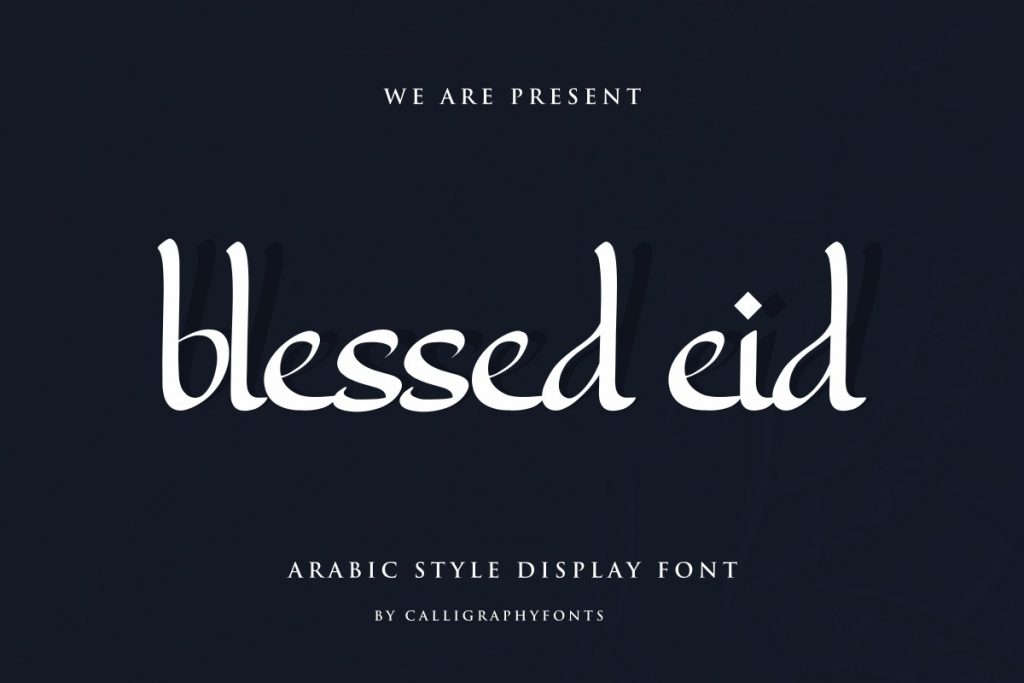
It is an Arabic style display calligraphy script font. Perfect for typographic projects such as greeting cards, invitations, flyers, posters, tittles, book covers and etc.
Araboto – Arabic Typeface
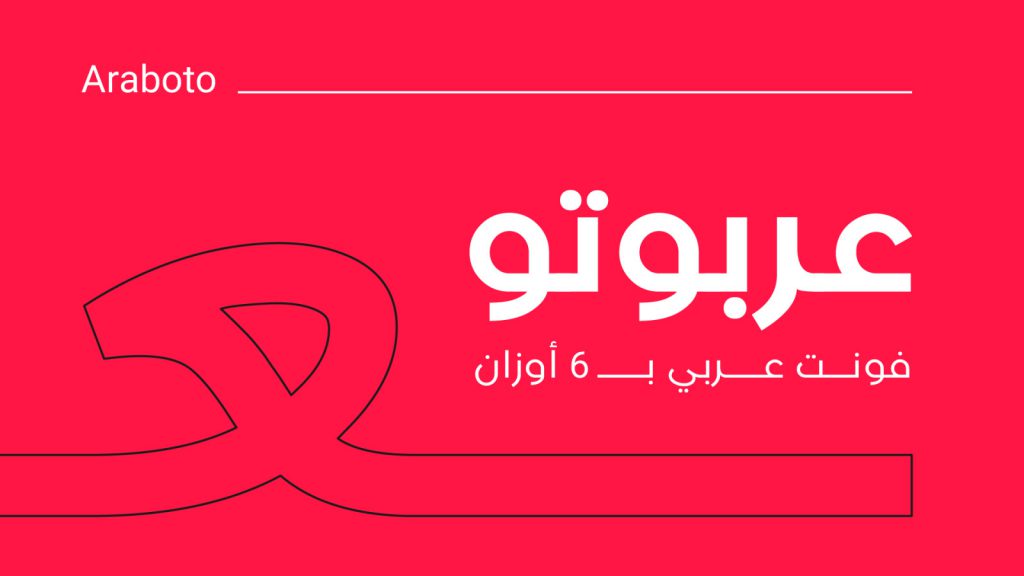
Araboto is a simple geometric Arabic typeface, with six weights. You can use it for a variety of uses from printings to web and mobile.
Saihat Arabic Typeface
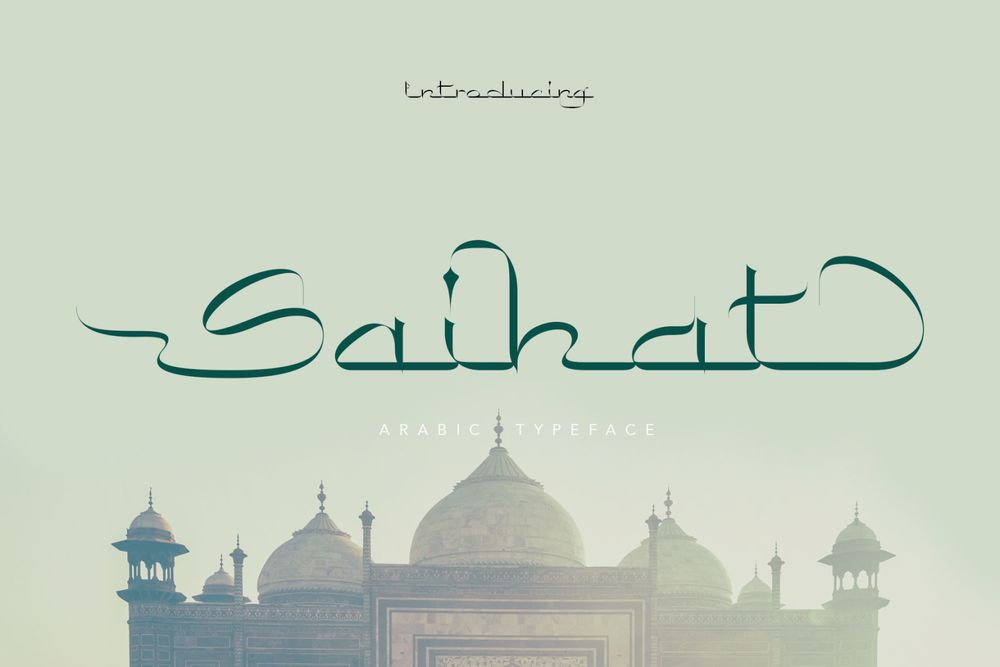
It is inspired by Arabic or Middle Eastern style calligraphy. This font is made with Latin characters so that it can be read internationally. This font is perfect for Middle Eastern or Muslim designs.
Sabana – Arabic Font
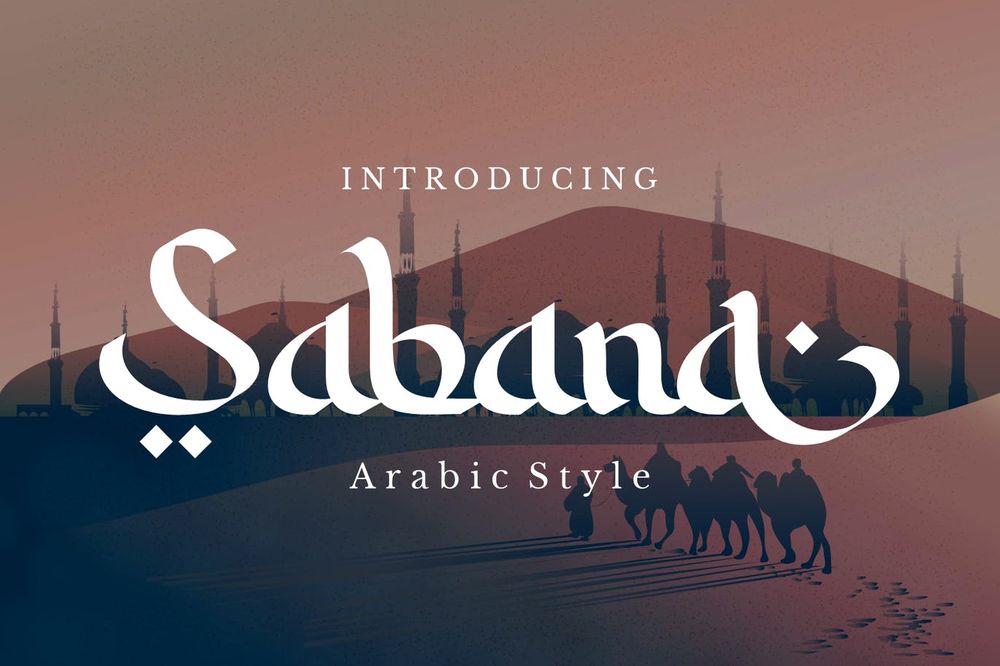
It is an Arabic style typography that is suitable for Ramadan project. The feels of Islamic characters of this font will be great for your project. It must be perfect for Ramadan Kareem greeting card and it’s kind.
Mustopha – Arabic Style
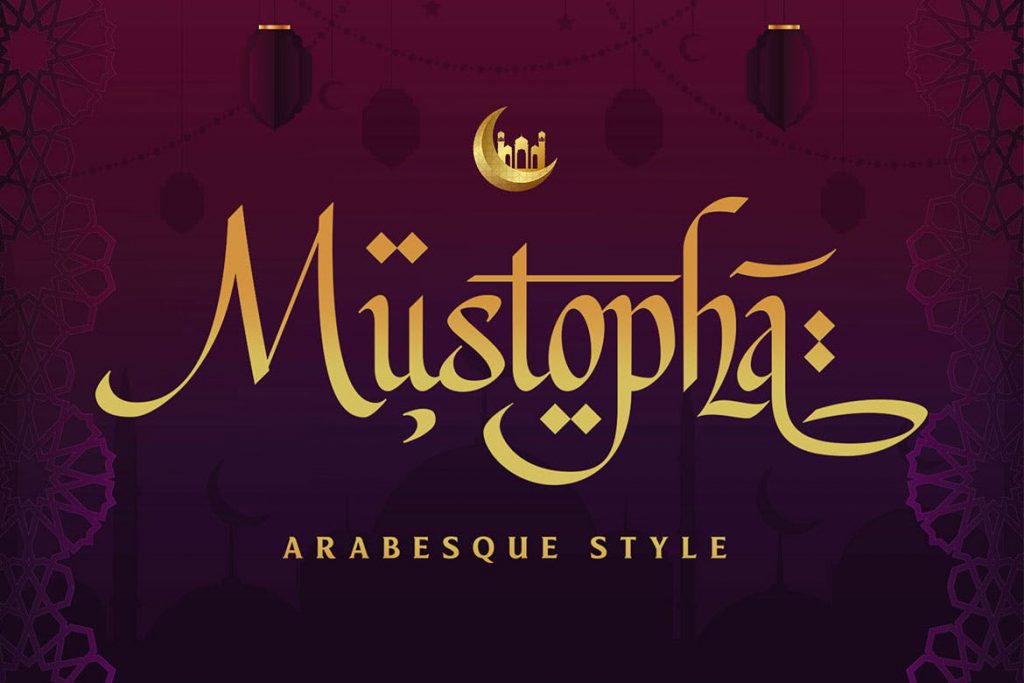
Feel the humanism with this font, neat, elegant, and luxurious with an extra set of alternates characters and Arabic symbols as a decoration of your typographic design. Ideal for posters, logos, branding, greeting cards, wedding, apparel, cosmetic labels, packaging, book covers and etc.
Khodijah – Arabic Style
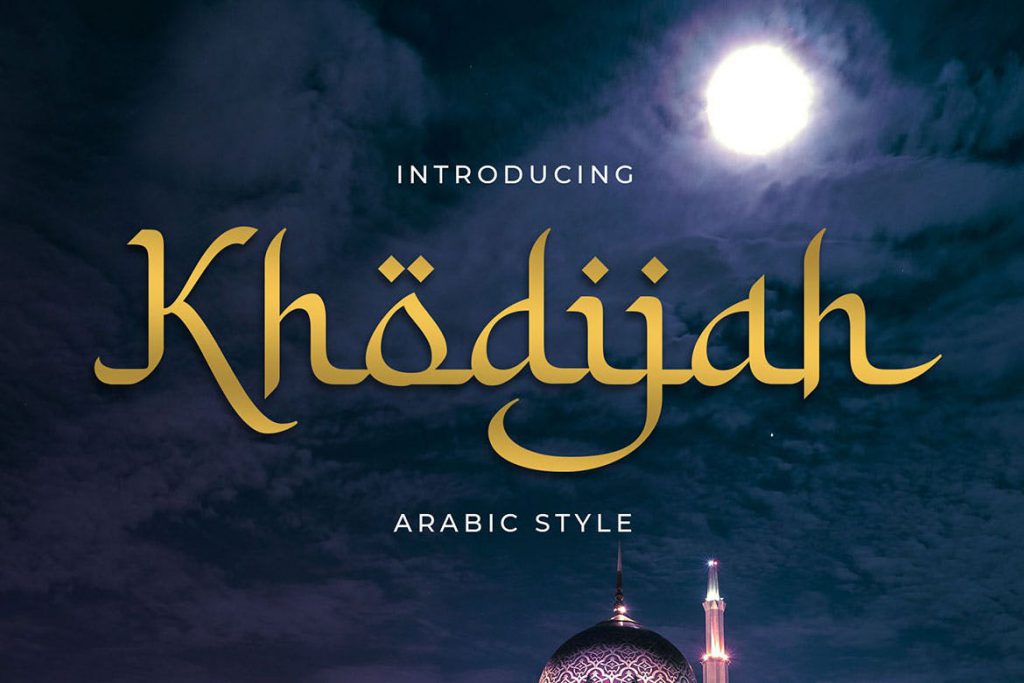
It is designed with a digital flat-pen and gothic typography technique which gives the elegant looks of the letters. Perfect for book covers, posters, flyers, banners, t-shirt, logos, branding and etc.
Rokhisa – Cartoon Faux Arabic Font
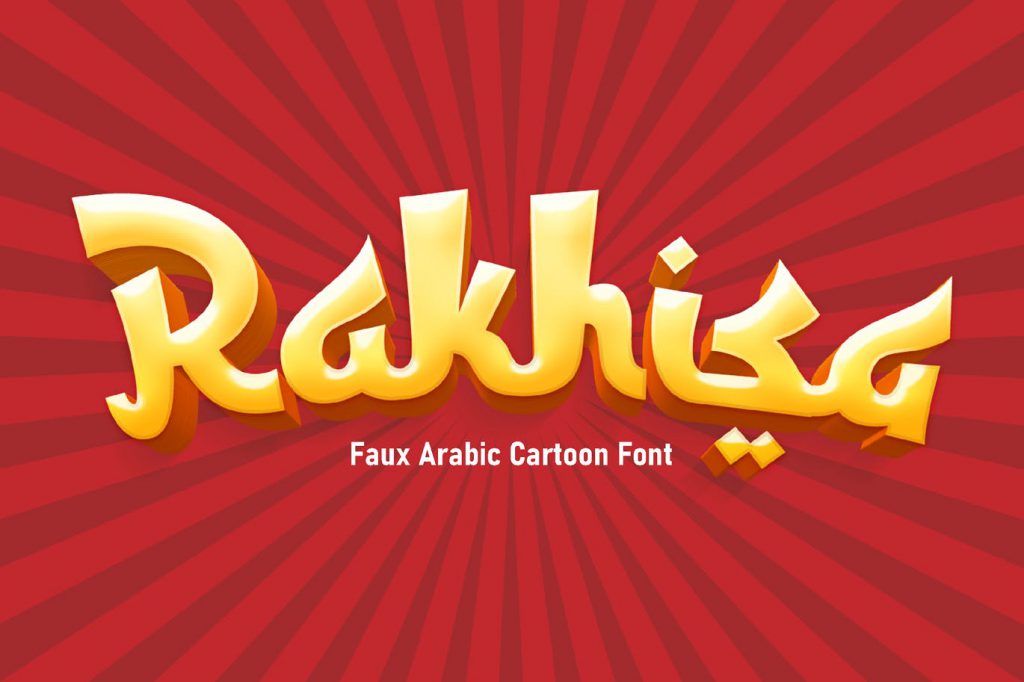
This font took the ethnic look of Arabic symbol and then, adding some bold and cartoony shape in it. Suit perfectly for website headlines, posters, traveling magazines, children books, kids games and etc.
Zahra Font
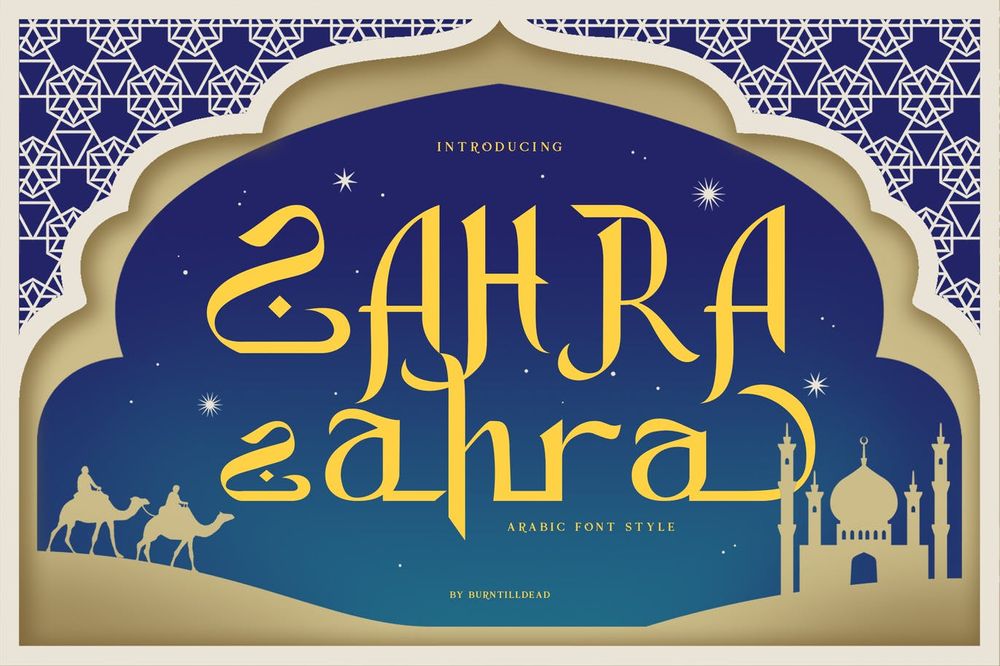
It is a display typeface with Arabic style. Powered with ligature to make fluent combination & multilingual language. Ideal for book covers, posters, flyers, brochures and etc.
Hakan – Modern Arabic Font Style
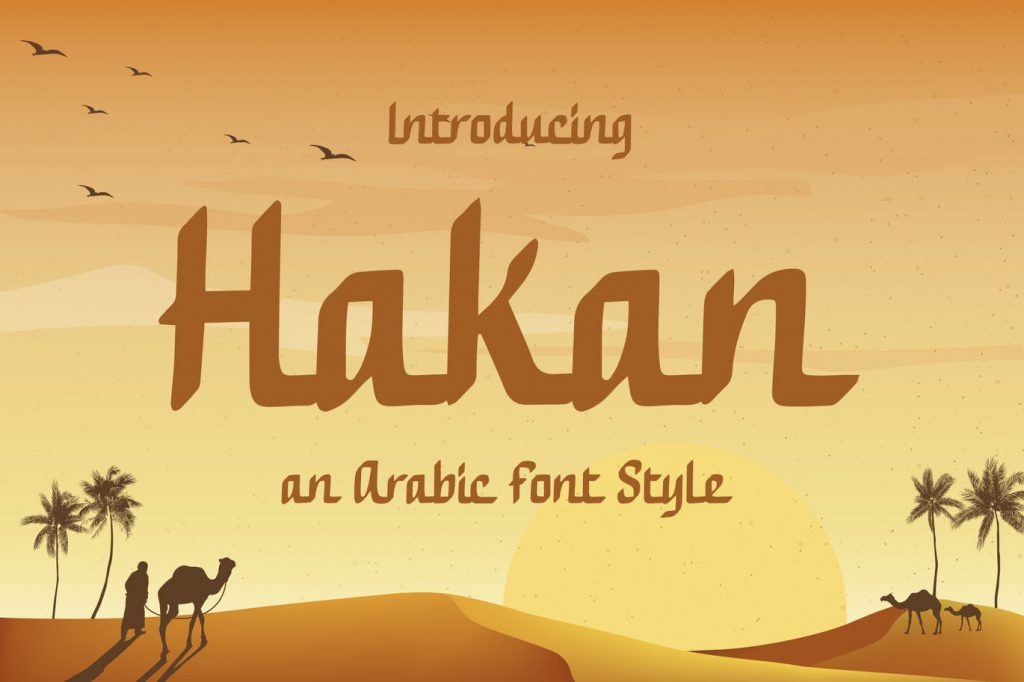
It is a modern display font with an Arabian look. This font is particularly for those not native to Arabic languages. The font suits creative titling on both web and print, perfect for scroll text.
Ramadhan Vibes – Display Arabic
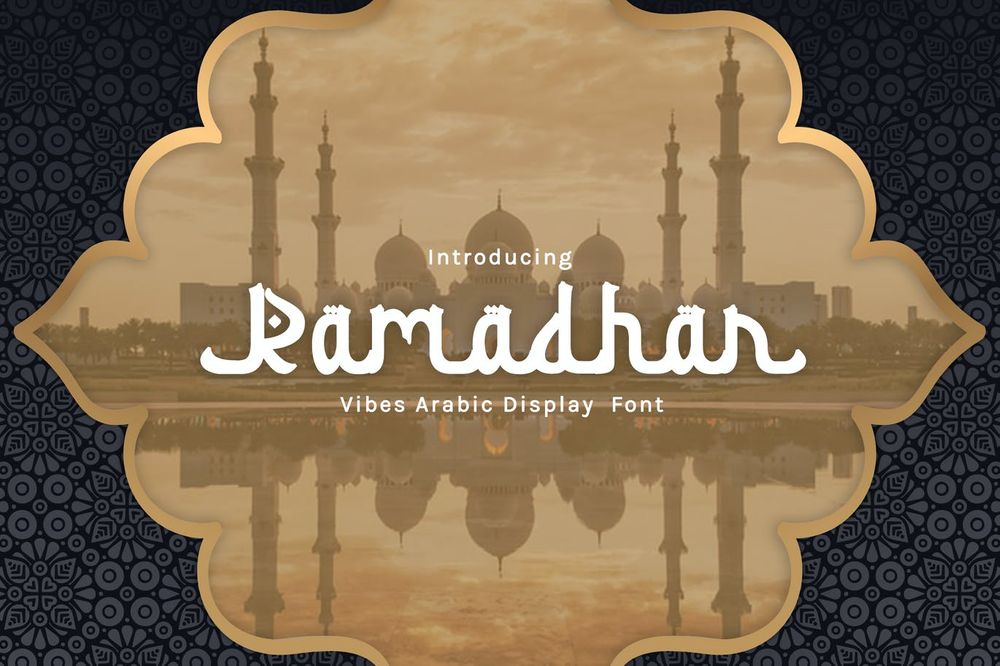
Ramadhan Vibes font suitable for any graphic designs such as branding materials, t-shirt, print, business cards, logos, posters, photography, quotes, coffe shops and etc.
Free Raouf Font
It is a cute and whimsical Arabic display font free for personal use. Best choice for promotion flyers, posters, greeting cards, covers, tittles and etc.
Free Lafadz Font
Awesome Arabic style font free for personal and commercial use. Perfect for book covers, lettering, posters, flyers, banners, promotions, packaging and etc.
Kufigraph – Arabic Font
It is an Arabic display font that features a unique geometric structure. Perfect for headlines, long texts, packaging, brochures and etc.
Raqami – Arabic Font
Raqami is an Arabic display font with a pixelated look. It suits modern projects including print advertising and web.
Falak – Arabic Font
Falak is an Arabic display font with rounded letterform that is inspired by the theme of astronomy and natural science. The font includes a stylistic set and it suits creative titling on both web and print.
Khayal – Arabic Font
Khayal is an Arabic display font with a linear/geometric structure. font that suits contemporary projects. It comes only in one weight and it combines a stylistic character set.
Ahlan – Arabic Typeface
Ahlan is an Arabic typeface with a geometric anatomy, soft corners and smooth terminals. It suits various range of applications including advertising and print media.
Aqlaam – Arabic Typeface
Aqlaam is an Arabic typeface with rounded letterforms. It is mainly designed for public advertising and publication and it comes in 6 different weights; thin, light, regular, medium, bold and outlined bold.
Mideast – Middle East Calligraphic Font
Inspired by the Middle East calligraphic shape, crafted into bold and script fonts. Perfectly fit for Middle East Arabic designs, hip hop fashion, logos, branding, posters and etc.